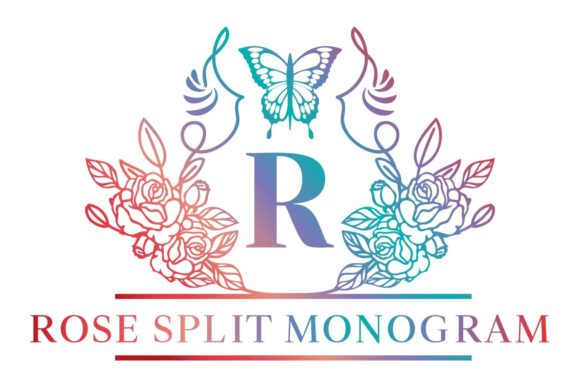
Introducing Rose Split Monogram Font, the perfect choice for adding a touch of charm and elegance to your creative projects! Created by Sintegra, this adorable decorative font with its unique split letters is sure to captivate your audience and make your designs stand out from the crowd.
Whether you're working on digital projects, cards, invitations, weddings, logos, kids monograms, websites, or crafts projects, Rose Split Monogram Font is the ultimate companion. Its versatility knows no bounds, allowing you to effortlessly elevate the visual appeal of any medium.
Imagine the joy of receiving a beautifully crafted invitation or card that showcases your attention to detail and creativity. With Rose Split Monogram Font, you can effortlessly achieve this and more. Its intricate design and elegant style will leave a lasting impression on your recipients, making them feel truly special.
But it doesn't stop there! Rose Split Monogram Font is also perfect for adding a personalized touch to your branding. Whether you're a small business owner or a freelancer looking to create a unique identity, this font will help you leave a lasting mark. Your logo will exude professionalism, creativity, and sophistication, setting you apart from the competition.
Are you planning a project that caters to children? Look no further! Rose Split Monogram Font is a playful yet refined choice for kids monograms, creating a whimsical and enchanting atmosphere that will capture their imagination. From nursery decor to children's books, this font will add a touch of magic to any design.
Crafters and DIY enthusiasts, rejoice! Rose Split Monogram Font is here to take your projects to the next level. Whether you're working on scrapbooking, vinyl cutting, or any other creative endeavor, this font will become your go-to tool. Let your imagination run wild and watch as your crafts transform into stunning works of art.